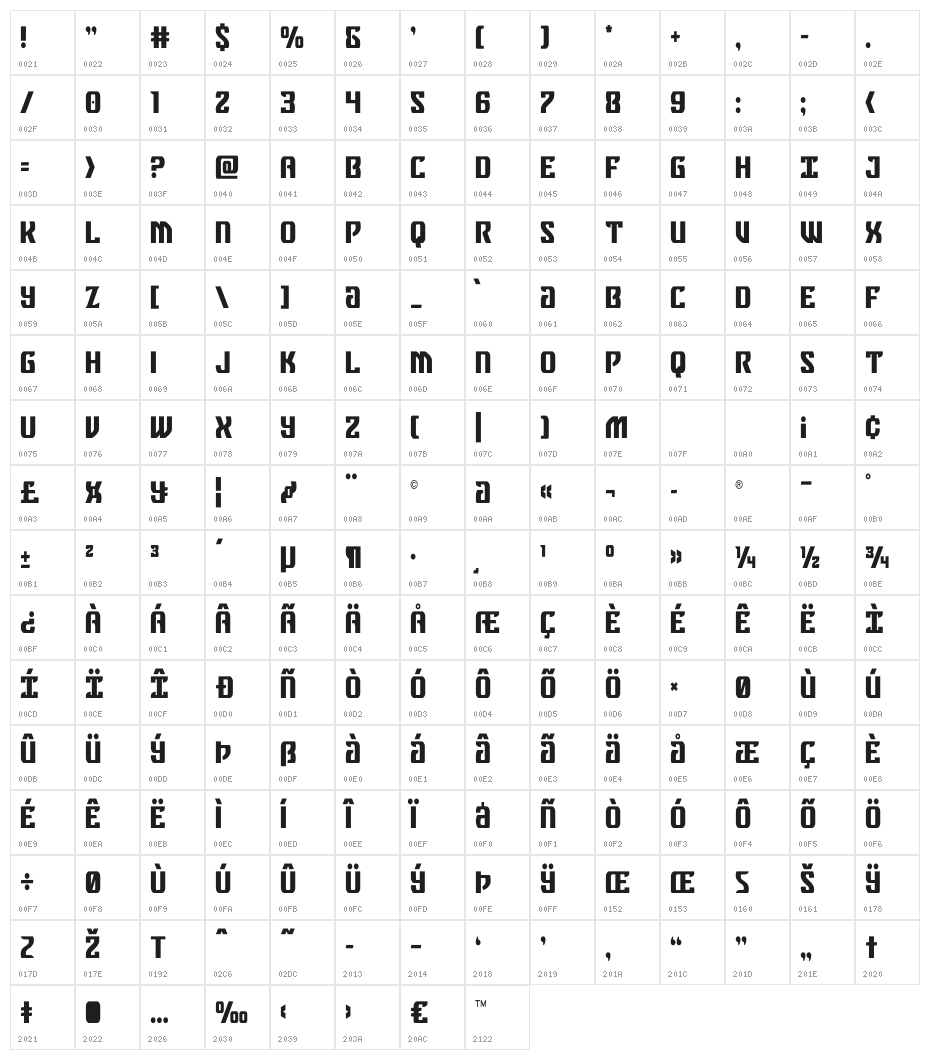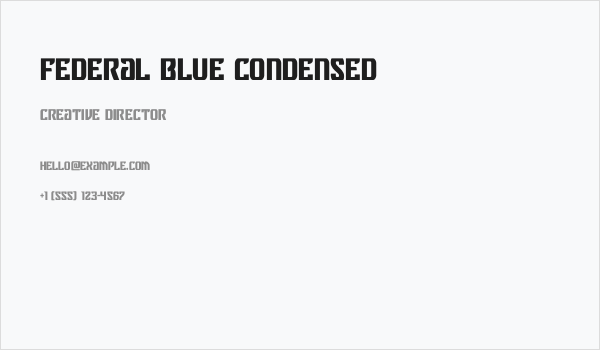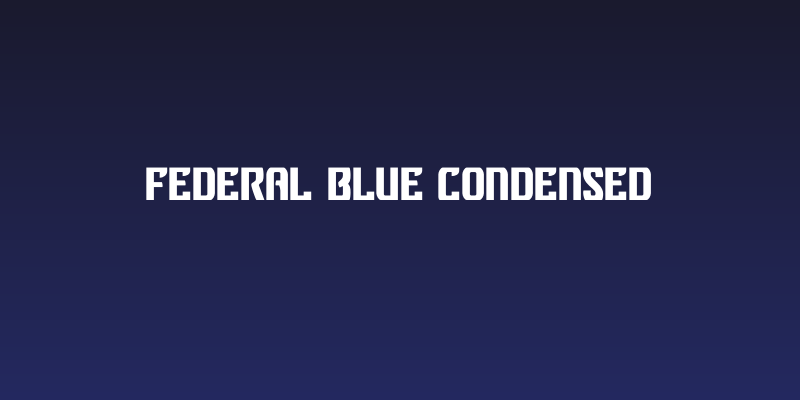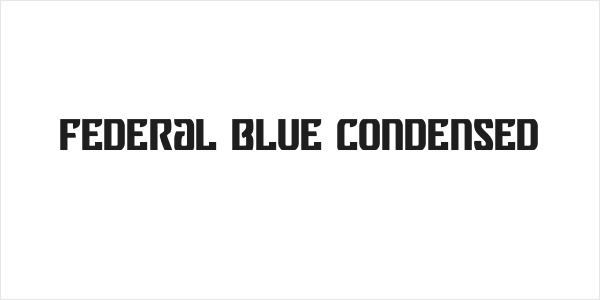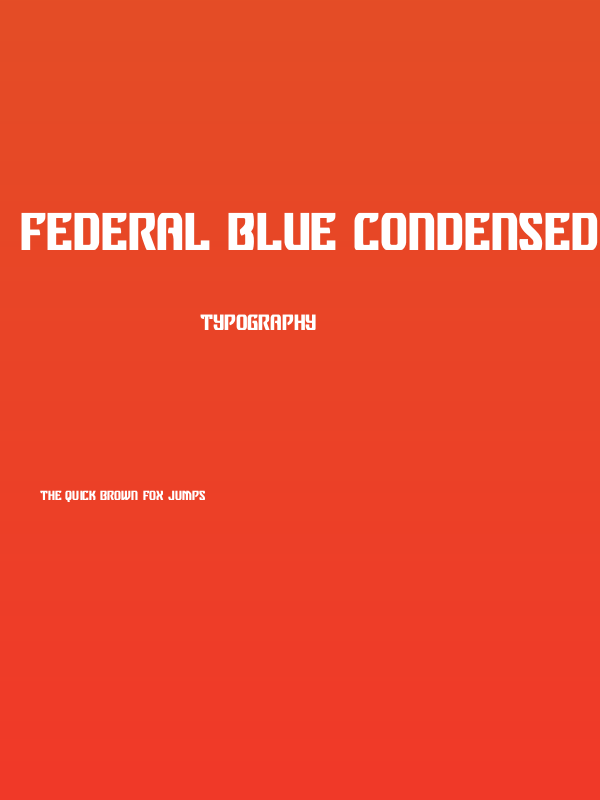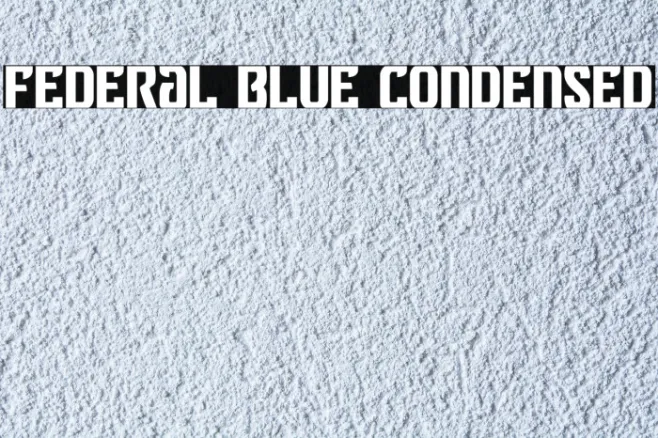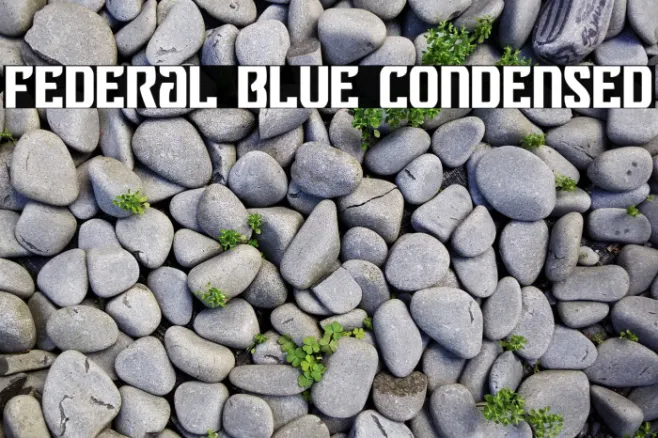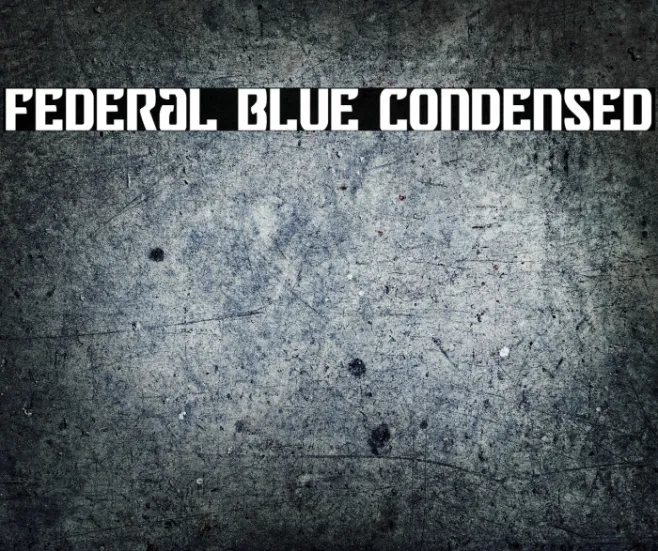
Federal Blue Condensed Font
Federal Blue Condensed Description
This font features a bold and condensed style with a strong geometric structure. The uppercase letters have a uniform height and width, creating a compact and impactful appearance. The strokes are thick and consistent, contributing to a robust and authoritative look. The numerals and special characters maintain the same boldness, ensuring visual harmony across all glyphs. The angular cuts and sharp edges give it a modern and industrial feel, making it suitable for attention-grabbing designs.
| Proposed Projects | Ideal for posters, headlines, branding, and signage where a strong and impactful presence is required. |